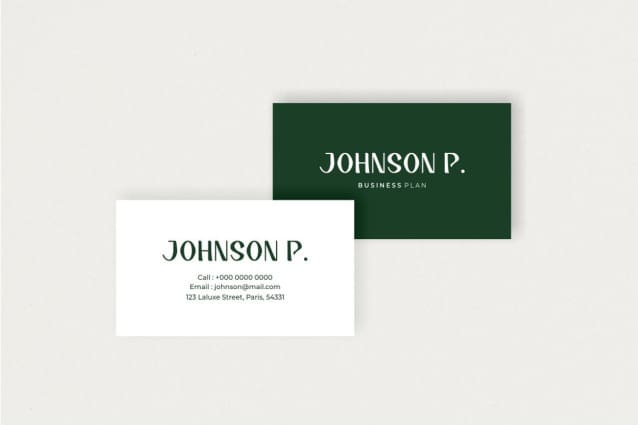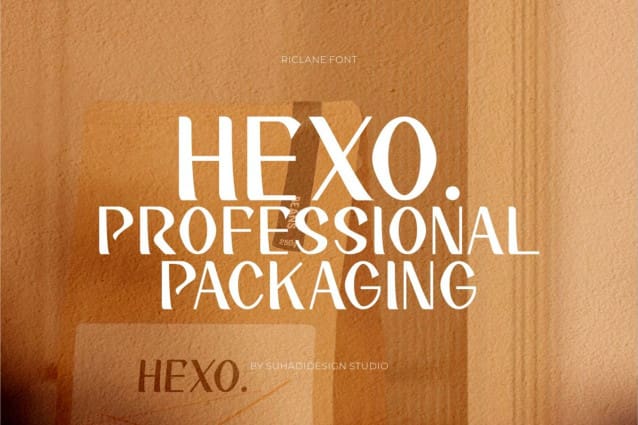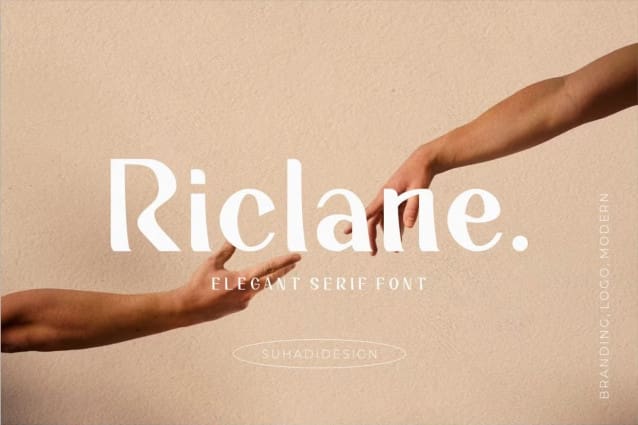
Riclane Display Font
Riclane Display Font is a serif font with very beautiful, comes with a modern style hoping to become a market favorite. We keep this font looking elegant, classy, ​​easy to read, stylish, attractive and easy to use. RiclaneDisplay Font is a great choice for magazines, retro designs, newspapers, books, brand names, branding, and other projects. The Riclanefont is here to take the quality of your designs to a higher level.